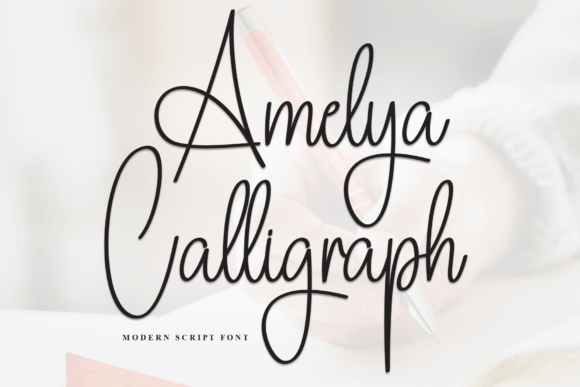
Discover the Magic of Handwritten Perfection
As a designer, there’s nothing quite like the thrill of bringing a project to life. It’s that moment when the blank page transforms into a vibrant, engaging piece of art that captures the essence of your vision. For many of us, this magic happens when we stumble upon the perfect font – one that speaks to our creative soul and elevates our design to new heights.
Enter the Amelya Calligraph Font, a beautiful, flowing handwritten font that exudes elegance and sophistication. With its incredibly distinct and timeless style, this font is perfect for designers seeking to add a touch of whimsy and personality to their projects. Whether you’re working on a wedding invitation, a marketing brochure, or a social media campaign, the Amelya Calligraph Font is sure to leave a lasting impression.
Key Features of Amelya Calligraph Font
- Font Type: Handwritten Calligraphy Font
- Font Size: 1,100 glyphs, including uppercase and lowercase letters, numbers, and punctuation
- Unique Characteristics: Includes swashes, flourishes, and connecting strokes for a realistic calligraphy look, ideal for wedding invitations, greeting cards, and other creative projects
Amelya Calligraph Font Review
I recently had the chance to work with the Amelya Calligraph font, and I must say it’s a lovely addition to any design project. Here are my thoughts on what works well and what doesn’t.
- Beautiful Handwritten Feel – The Amelya Calligraph font has a beautiful, elegant feel to it, perfect for creating a romantic or whimsical atmosphere in your designs.
- High-Quality Ranges – The font comes in a range of weights, from light to bold, making it versatile for various design needs.
- Wide Language Support – The Amelya Calligraph font supports a wide range of languages, making it a great choice for global projects.
- Limited Kerning – While the font itself is beautiful, the kerning could be improved for some letter combinations.
- Lack of Glyphs – Some languages or character sets may be missing glyphs, which could be a problem for certain design projects.
Overall, I think the Amelya Calligraph font is a great choice for designers looking for a beautiful, elegant handwritten feel. While it has some limitations, it’s definitely worth considering for the right project. Just be sure to test it thoroughly before committing to a design.
Amelya Calligraph Font: A Practical Application Guide
For best results, use Amelya Calligraph Font for titles and headings, and pair it with a clean and simple font for body text.
Amelya Calligraph Font is perfect for:
- Event titles and headings
- Personalized gifts and cards
Alternatives to Amelya Calligraph Font
Great Vibes is a beautiful, elegant script font perfect for creating a luxurious and sophisticated feel in your designs. It’s ideal for wedding invitations, branding, and packaging. When to use: Formal events, high-end products, and luxury brands.
Great Vibes is more refined and less quirky than Amelya Calligraph Font, making it a better choice for formal and elegant designs. It also has a more consistent letter spacing, giving it a more polished look.
Alex Brush is a handwritten script font that adds a touch of warmth and personality to your designs. It’s perfect for creating a friendly and approachable feel, making it ideal for food labels, signage, and social media graphics. When to use: Casual events, food and beverage brands, and social media.
Alex Brush has a more relaxed and casual feel compared to Amelya Calligraph Font, which makes it a better choice for designs that require a more laid-back tone. It also has a more varied letter spacing, giving it a more organic look.